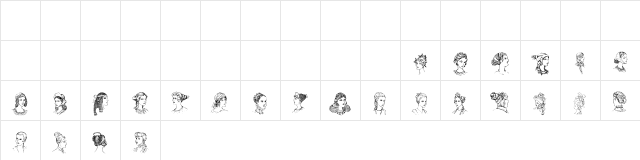
Cosette Regular Free Font
Cosette Regular
Design Context for Cosette
Cosette is a composed and adaptable typeface that performs quietly and consistently across a wide range of design contexts.